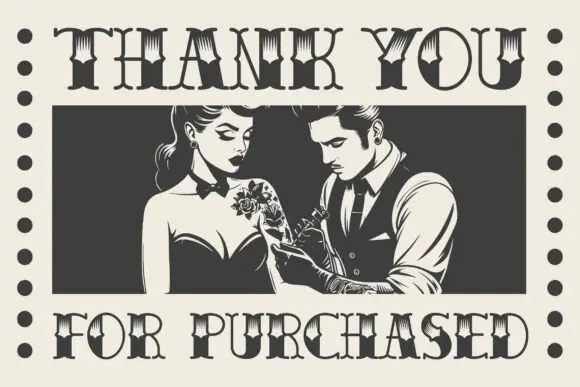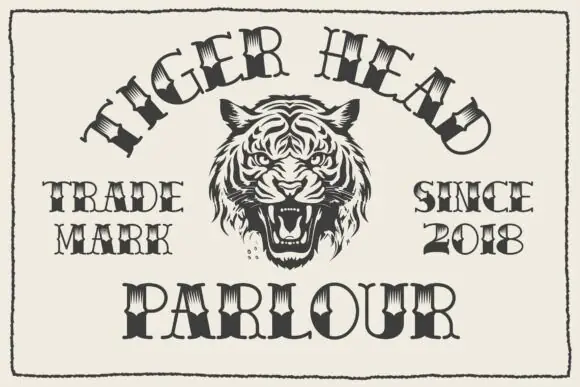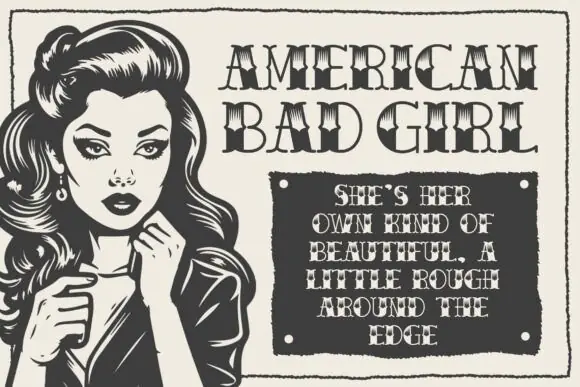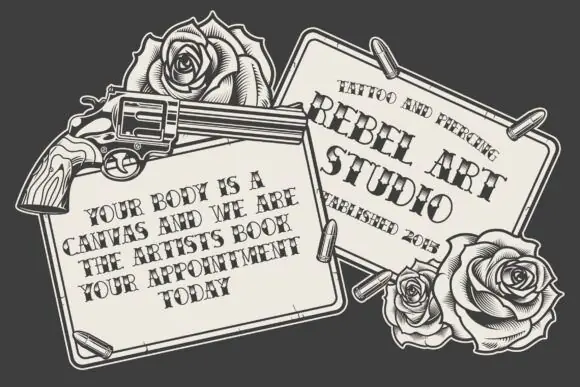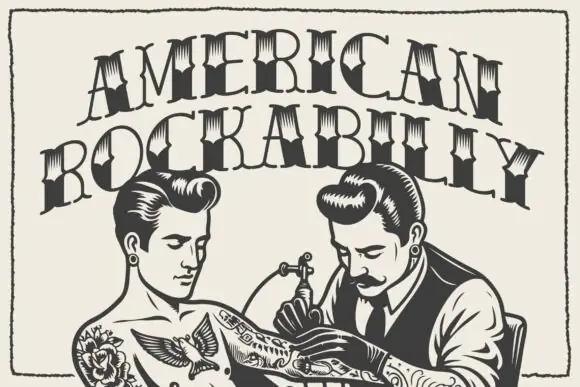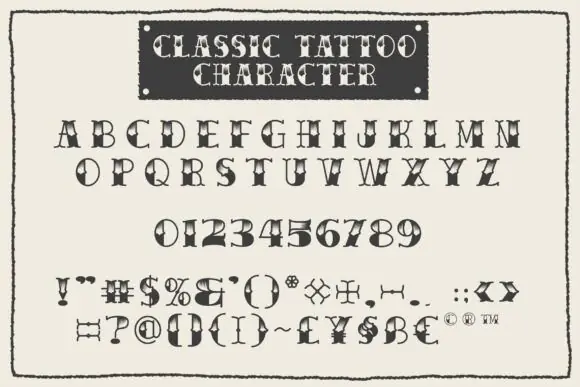
Create bold, professional, and timeless designs with Classic Tattoo Font, a traditional tattoo-style font made for branding, logotypes, posters, watermarks, promotional materials, product packaging, and other creative projects.
Every letter in this font carries a tattoo-inspired design, giving your typography a strong vintage, decorative, and handcrafted look. Classic Tattoo Font is perfect for designers, tattoo artists, crafters, apparel sellers, small business owners, and digital creators who want to add a confident old-school tattoo feel to their work.
This font works beautifully for logos, brand identity designs, t-shirt prints, hoodie graphics, posters, flyers, stickers, labels, product packaging, album covers, barbershop branding, motorcycle-themed designs, streetwear graphics, wall art, quote designs, and social media graphics.
Classic Tattoo Font is a strong choice for creating bold, vintage, and professional designs with an authentic tattoo-style personality.